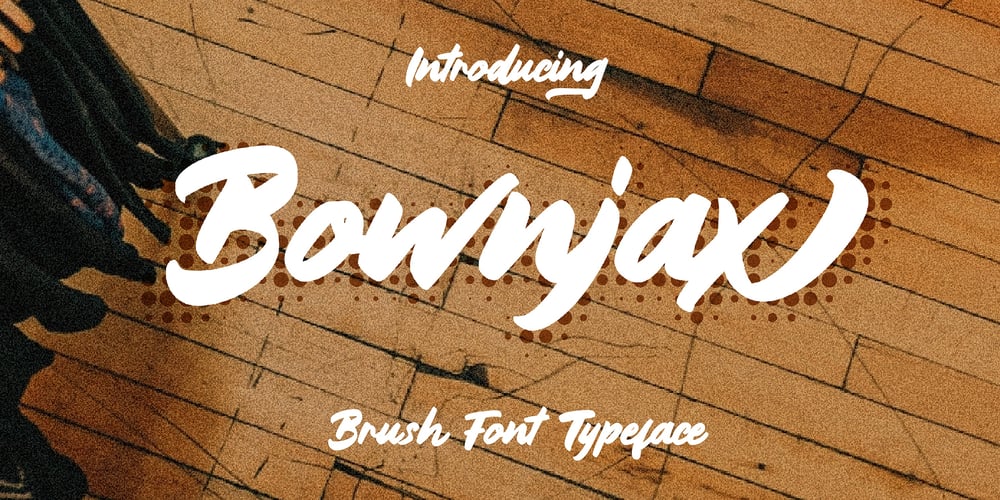
Bownjax Font Family was designed by Rachma and published by BonjourType. Bownjax contains 1 styles and family package options. Bownjax is a modern, handwritten, brush script font that is both versatile and unique! This font is perfect for modern projects, headings, blogs, logos, branding, business cards, websites, invitations, shirts, mugs, and more.This font is PUA encoded which means you can access the available glyphs and swashes with ease!